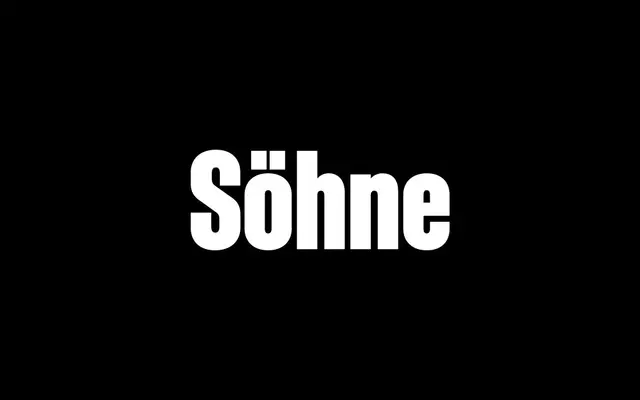
Söhne Schmal
Klim Type Foundry · Kris Sowersby · 2019
Söhne Schmal specimen from Klim Type Foundry
The condensed cut of Söhne, taking the Akzidenz lineage into tight columns and stacked headlines without losing the family's neutrality.
The narrow companion to Söhne, drawn by Kris Sowersby for measures and stacked headlines that the standard width can't hold. Eight weights from Extraleicht to Extrafett run with Kursiv italics, keeping the Söhne family's eight-step German nomenclature consistent across widths. Editorial mastheads, posters and tight UI labels are the natural home, often paired with Söhne for body copy.
Klim classifies it as Lineal: Grotesque; the condensed cut in the Söhne system, drawn from the same Akzidenz-Grotesk and Standard Medium reference points as the parent family.